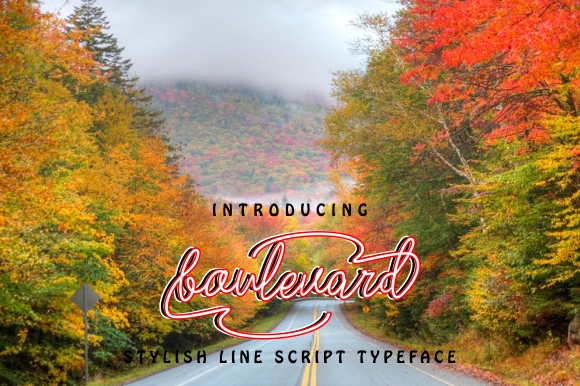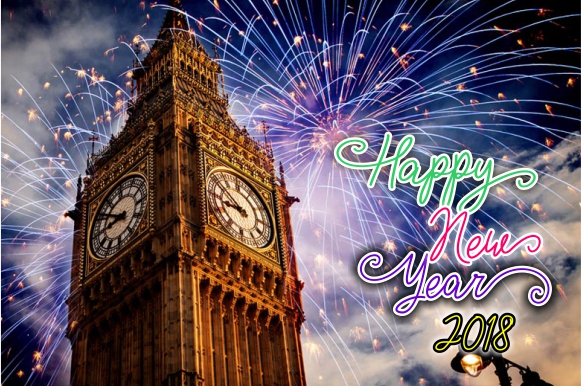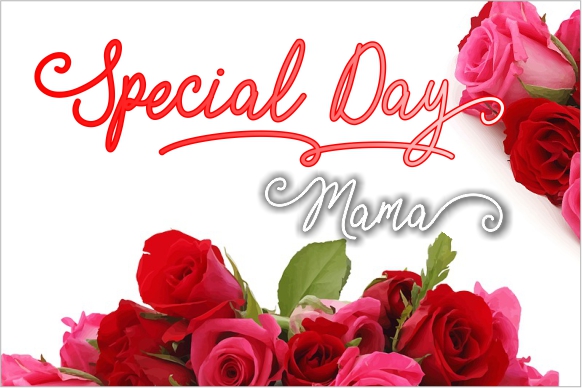
Boulevard Font
About Boulevard Font
Boulevard is a beautiful and classically styled font. This script is handwritten and flourished, and will add romance and sophistication to your design scapes.